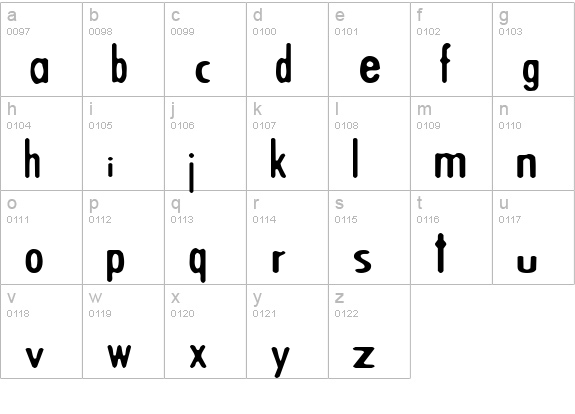
Trigger A Font Details
Introducing Trigger A font, a captivating typeface that effortlessly combines elegance, versatility, and a touch of modernity. With its sleek and sophisticated design, Trigger A font is the perfect choice for a wide range of creative projects, from branding and logo design to editorial layouts and social media graphics. This font's unique and distinctive style is sure to grab attention and leave a lasting impression. Its clean lines and balanced proportions create a harmonious visual experience, making it suitable for both headlines and body text. Whether you're designing for print or digital media, Trigger A font's legibility and readability ensure that your message will be conveyed with clarity and impact. But what truly sets Trigger A font apart is its availability as a free download. That's right, this remarkable font can be freely accessed and downloaded at FontsMarket.com. This means that you can unleash your creativity without any limitations, while also saving on your design budget. With Trigger A font, you not only get a high-quality typeface, but you also get the freedom to explore and experiment with your designs, without any constraints. So, why wait? Elevate your designs and make a statement with Trigger A font. Download it for free at FontsMarket.com and let your imagination soar. With its timeless elegance and modern appeal, Trigger A font is sure to become an indispensable tool in your design arsenal.